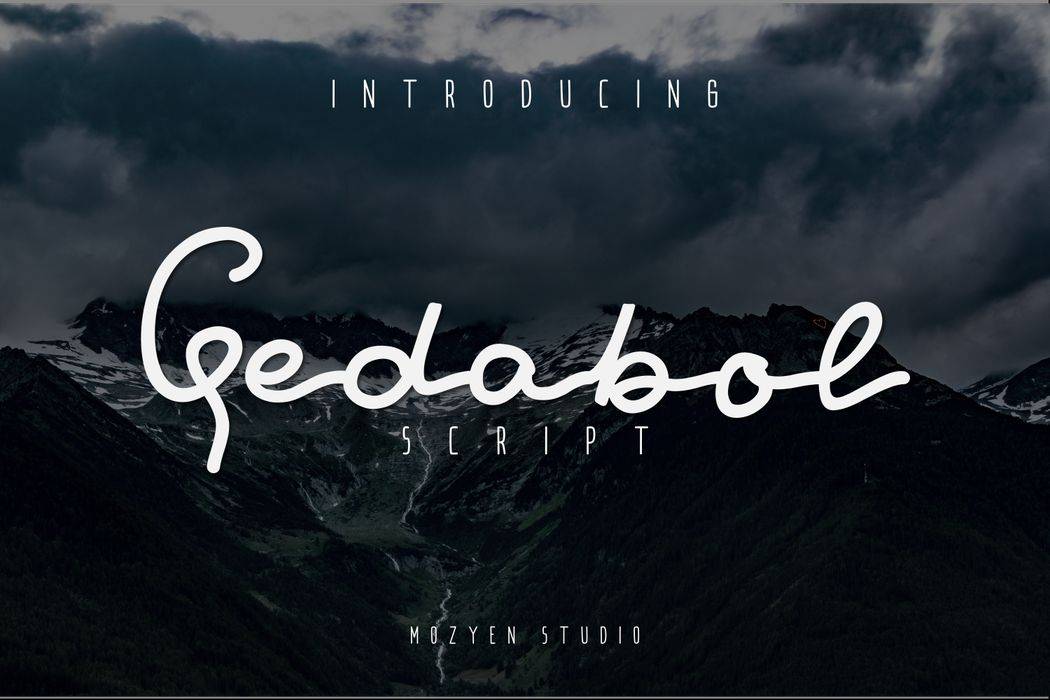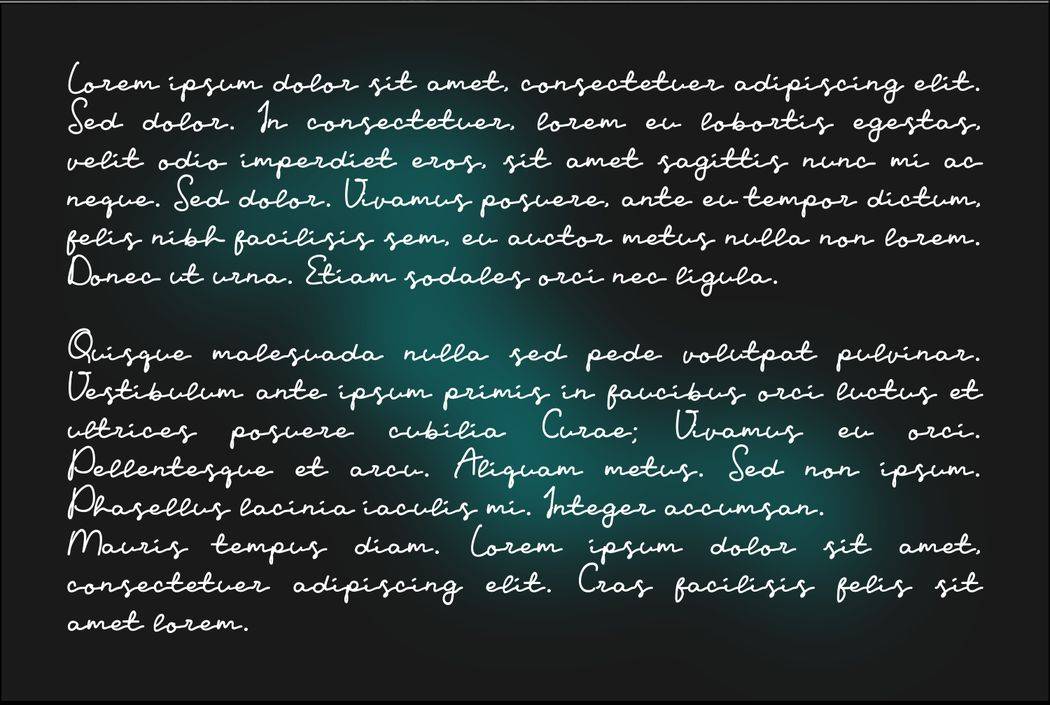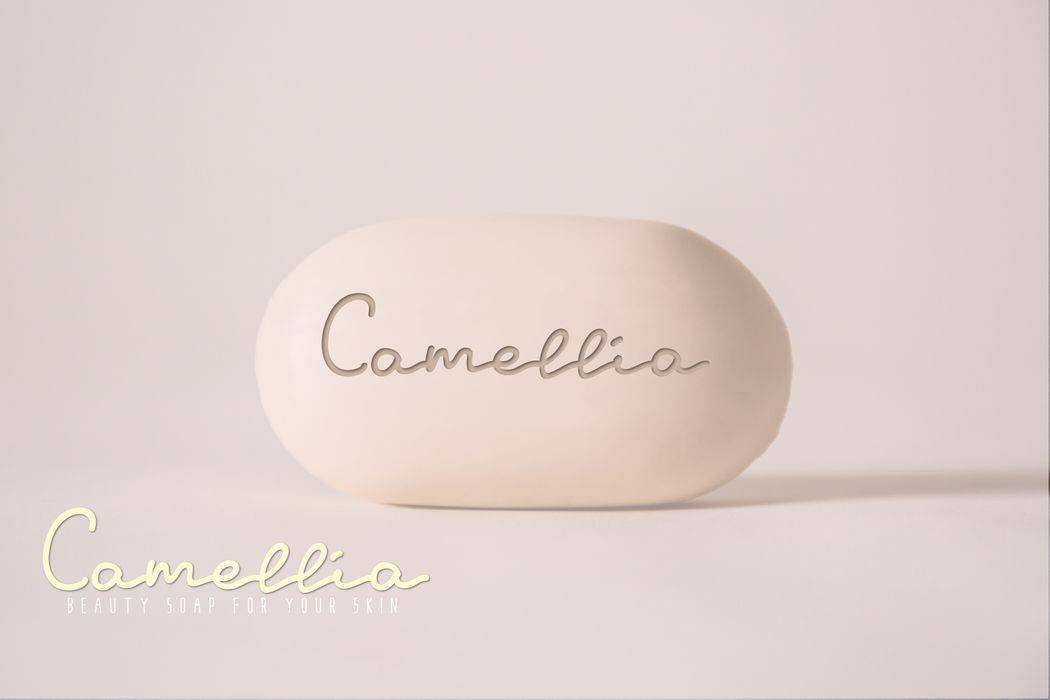
Gedabol is a casual, handwritten script font with a lively and informal character, featuring smooth, flowing strokes and moderate contrast. Its playful yet legible letterforms make it ideal for creative projects, personal branding, and stylish invitations where a friendly, approachable feel is desired. This font works best in headlines and logos, adding a charming, authentic touch without sacrificing readability.
Gedabol Font
About Gedabol Font